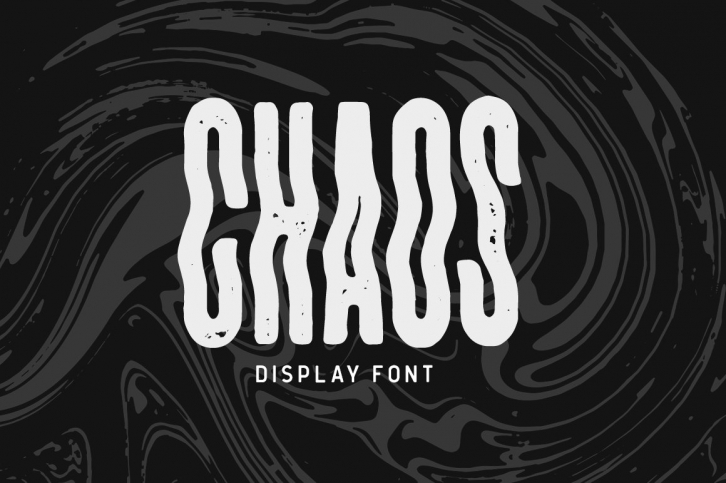
I am so pumped to present CHAOS! After creating some custom type with a wavy effect and some gritty textures, I was inundated with messages from people on Instagram asking me how I did it. To save you all the work, I decided to create an entire display font! With numbers and punctuation on the way, CHAOS is a super rad way to spice up your website, social media profiles and even branding.